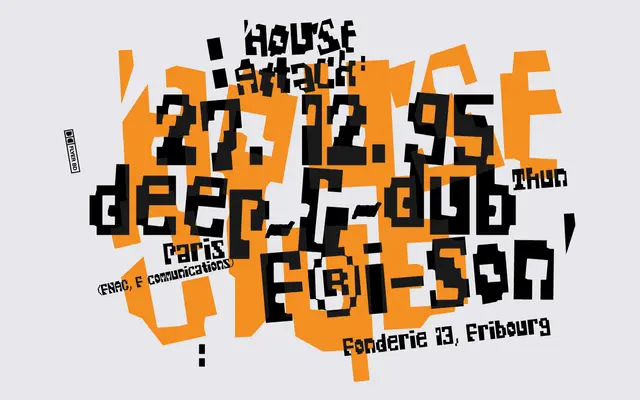
BD RatterBit
Type Different · 1995
A pixelated cut-out display typeface first released in 1995, expanded in 2024 with full uppercase, lowercase and broad Latin language support.
Originally from 1995 and revisited in 2024, this single-weight display face combines pixelated construction with a cut-out aesthetic that sits somewhere between retro gaming typography and graffiti-influenced design. The 2024 update brought lowercase characters, extended symbols and coverage across more than two dozen European languages. Best suited to gaming interfaces, digital art and editorial contexts where an unpolished, high-energy texture is wanted.
A pixelated cut-out display typeface with a deliberately rugged, retro aesthetic rooted in bitmap grid construction, placing it firmly in the display/pixel category.